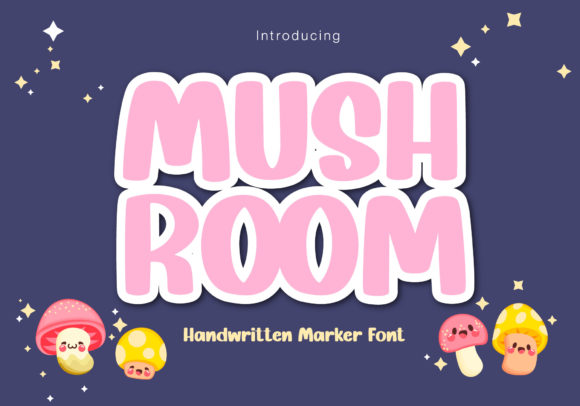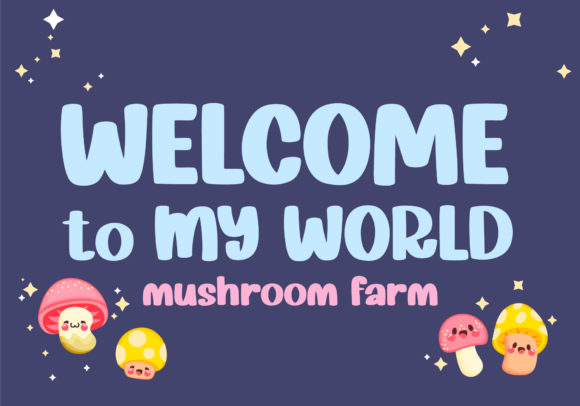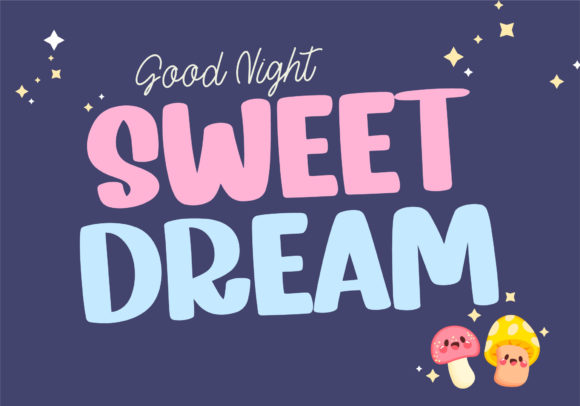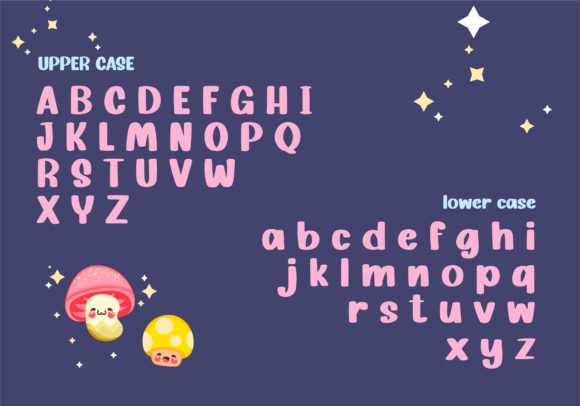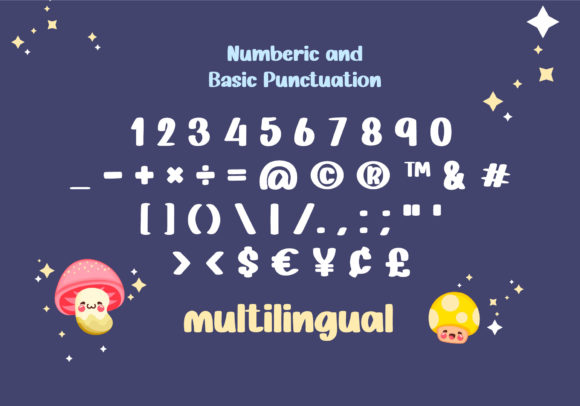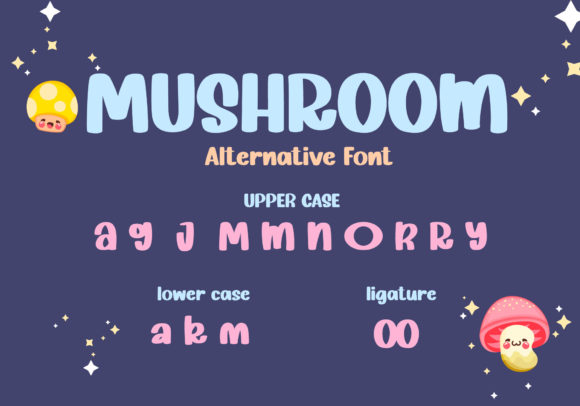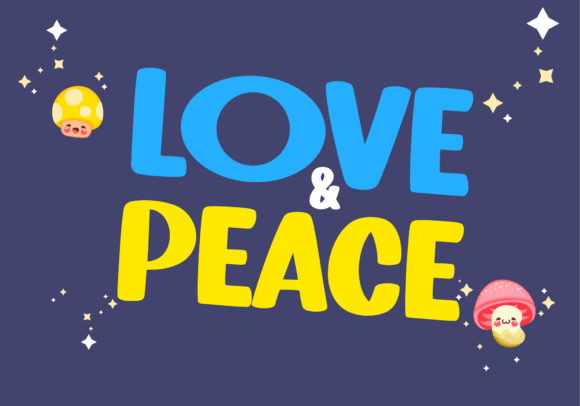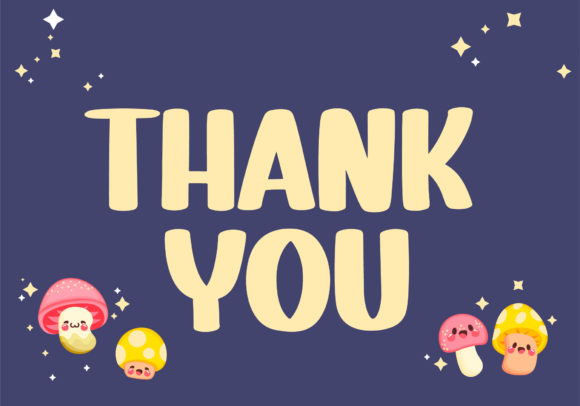
Mushroom Font
Mushroom is a bubbly, chunky lettered and friendly display font. It embodies playfulness and authenticity and is the perfect choice for any children activity or elementary school design.